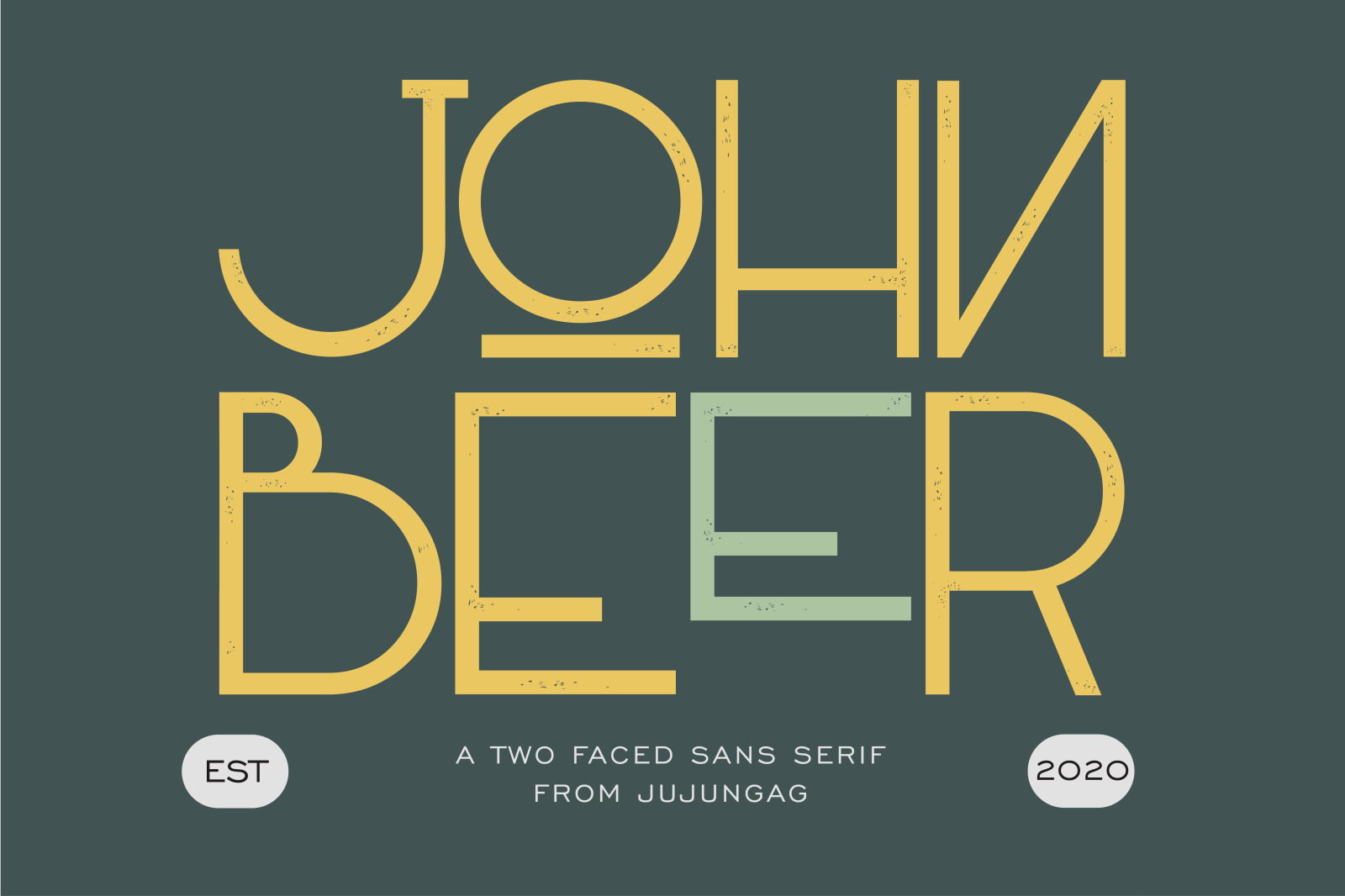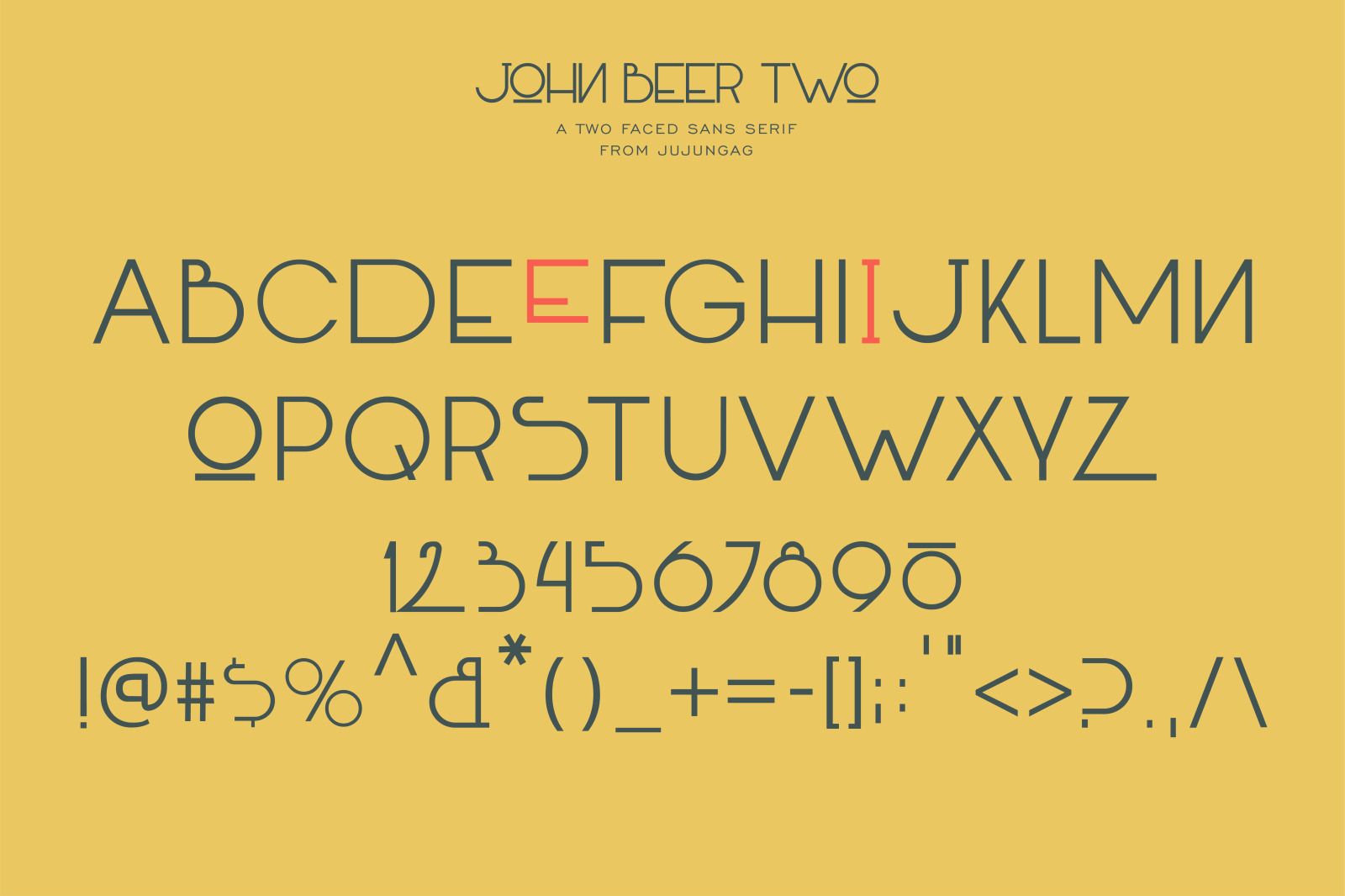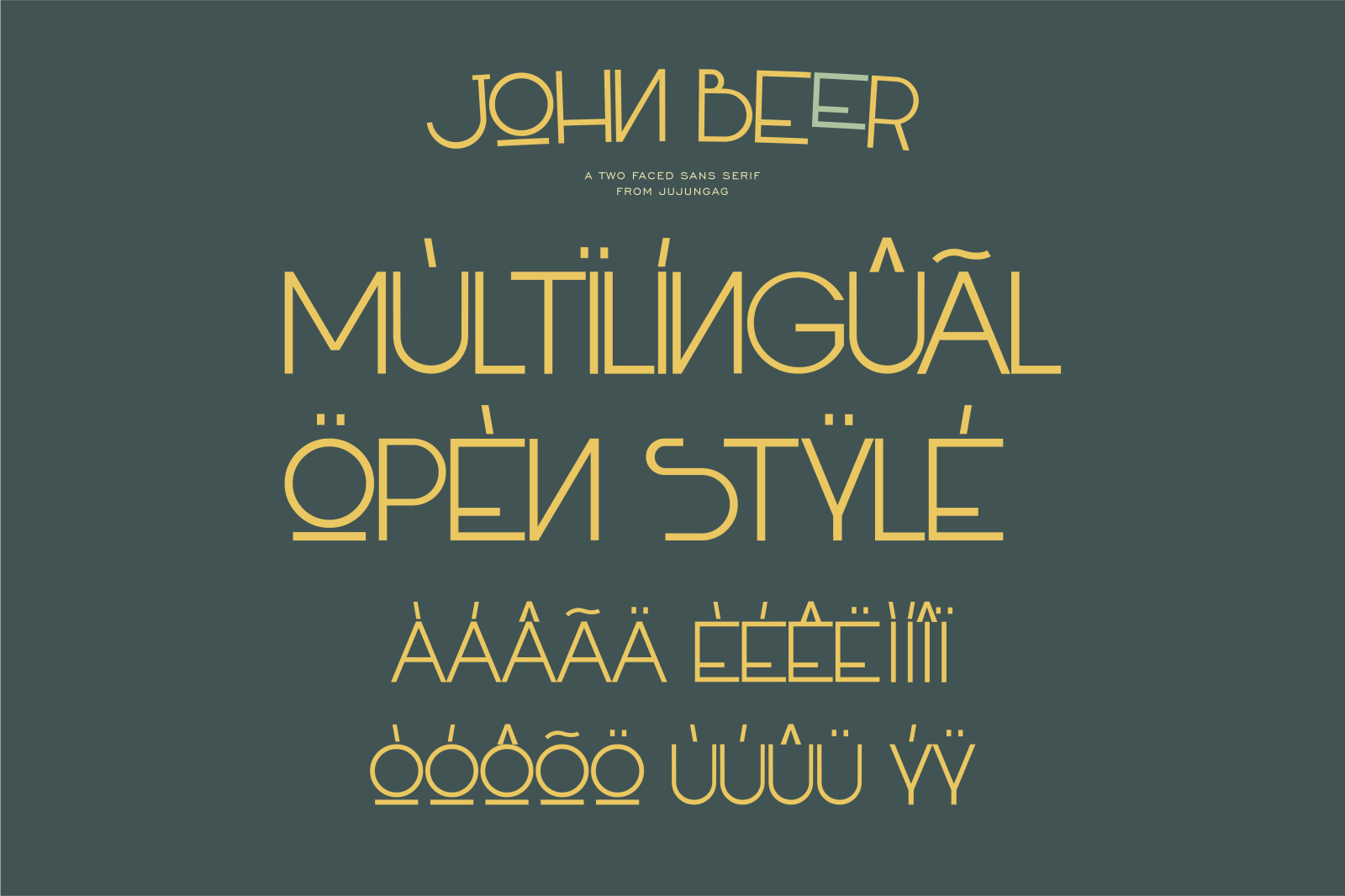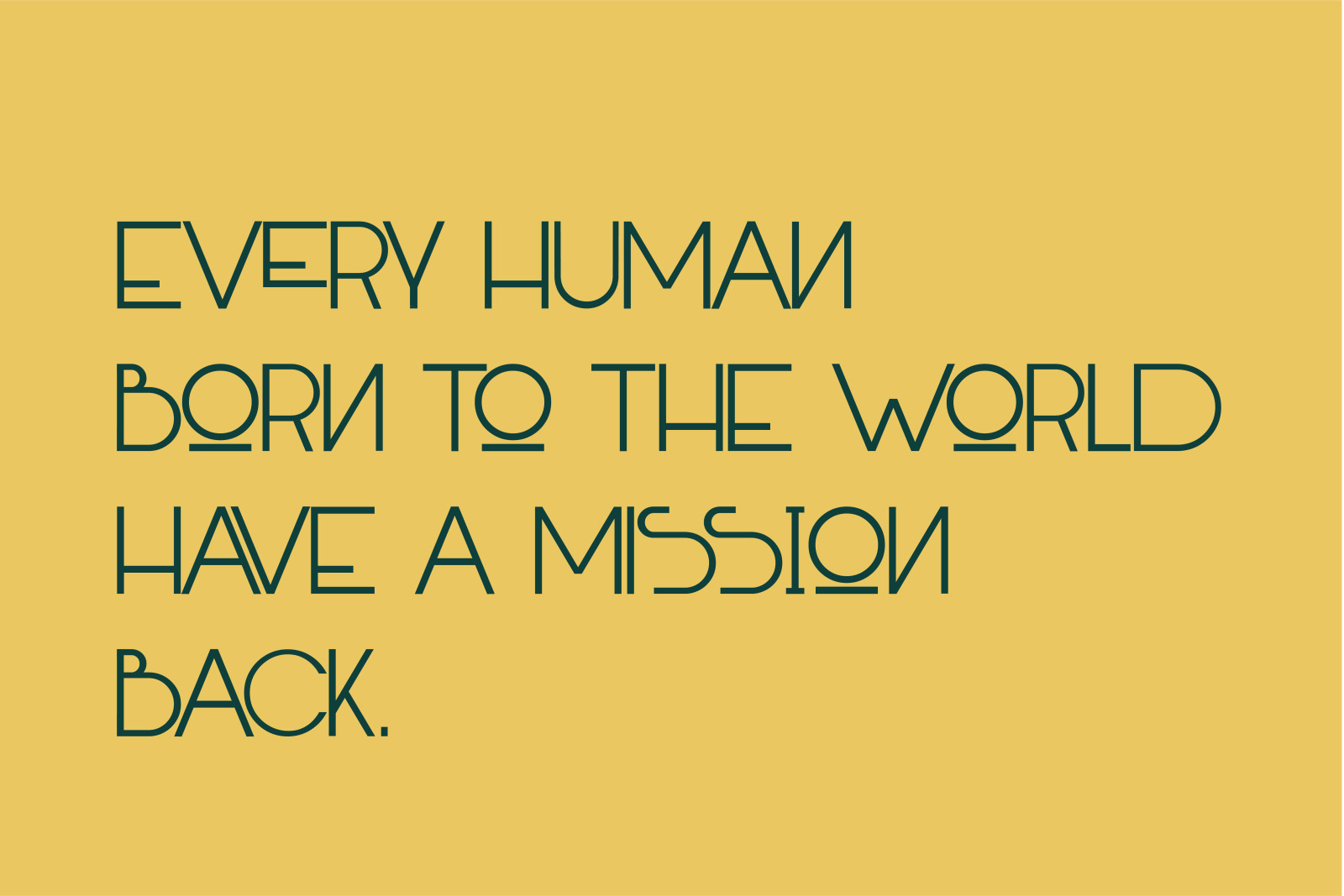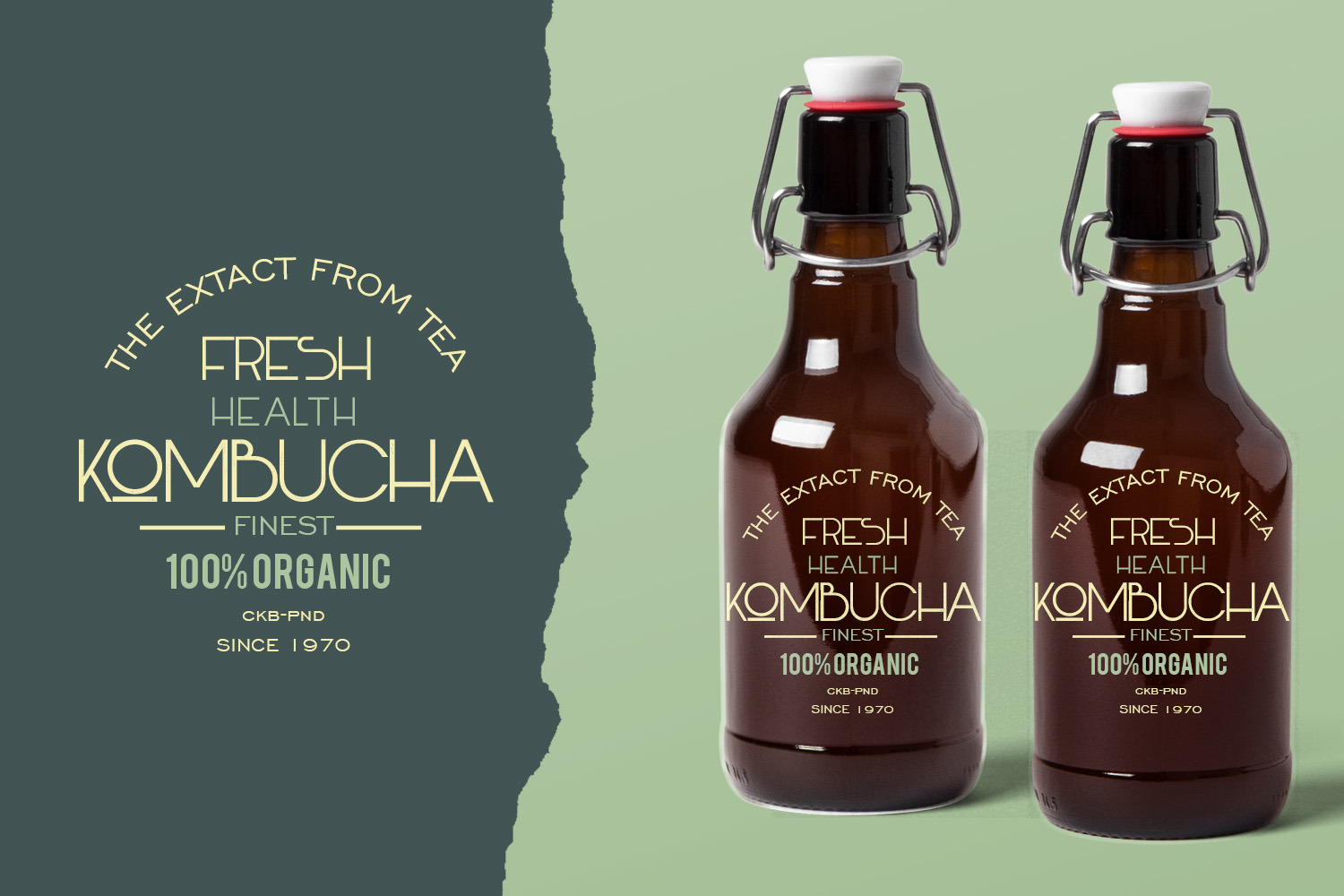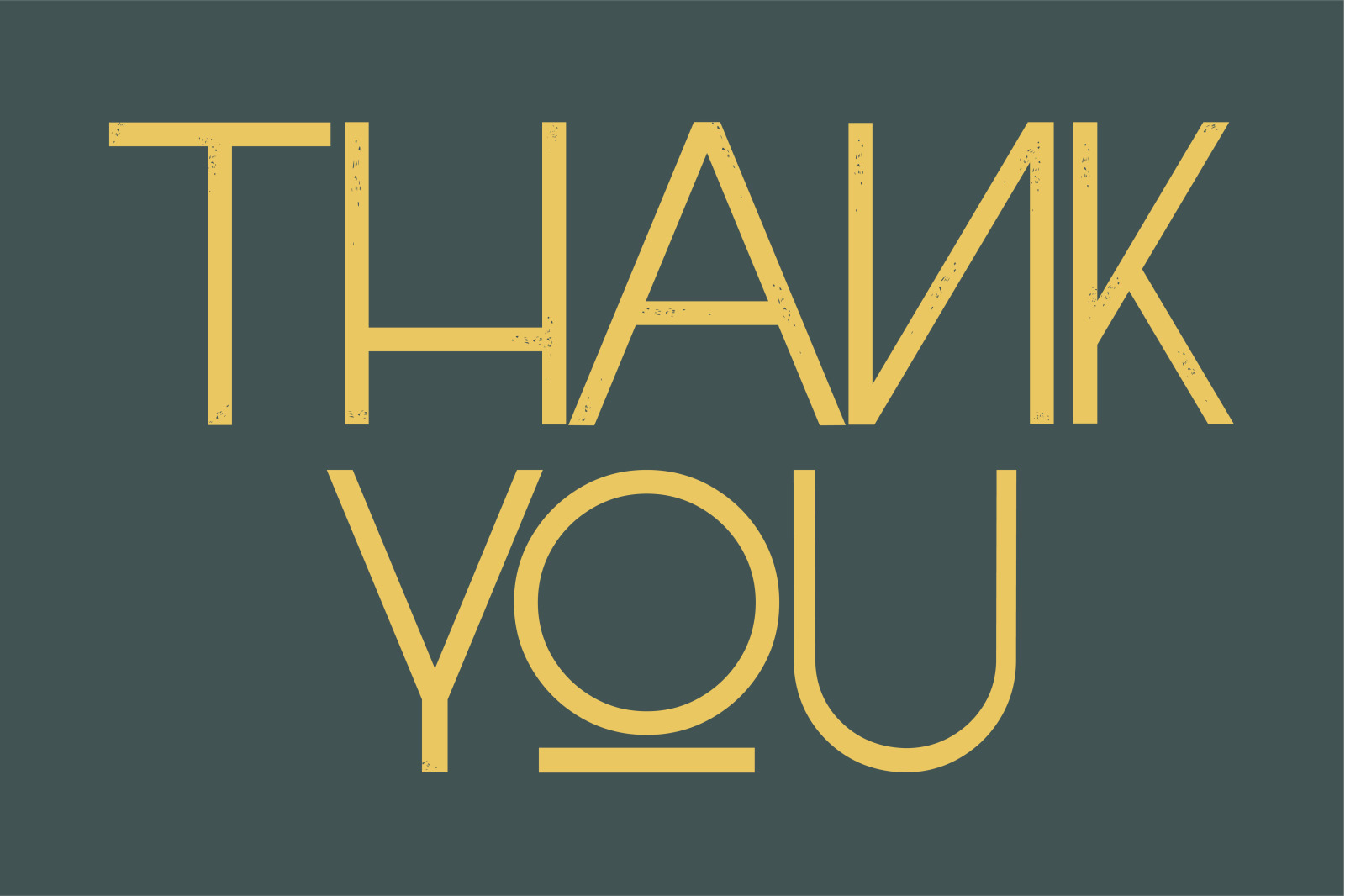
John Beer Two Faced Display Font
John Beer is a two-faced sans serif Font. Featuring a simple alternate E and I character. This font good used for product design like a beer bottle ,Barbershop name, Megazine, T-shirt, or climbing starter pack product. This product is really inspirational for your creative design.